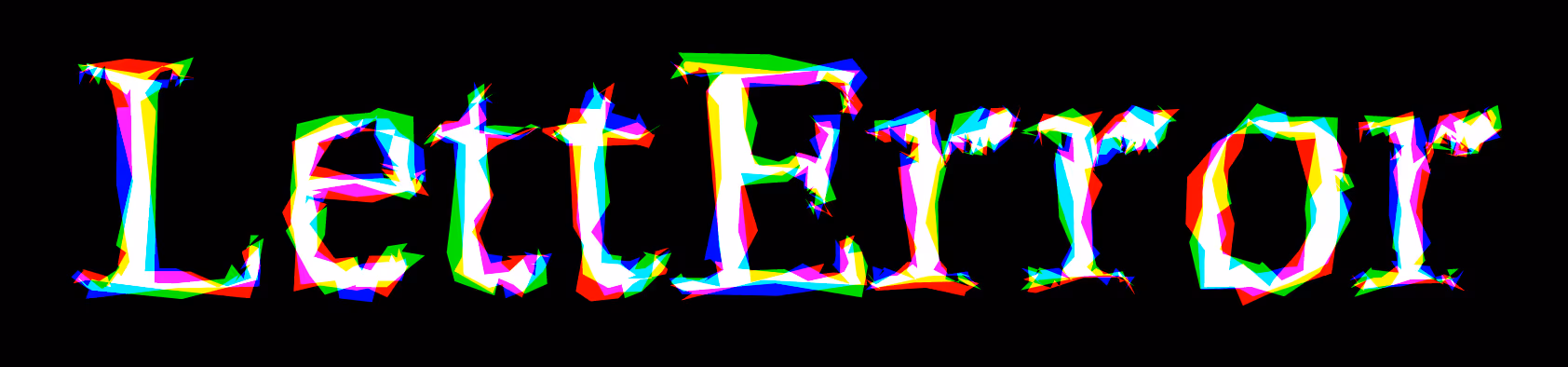
Emigré #18: Is Best Really Better? The original LettError article on random fonts, code and design in the digital age [1991]
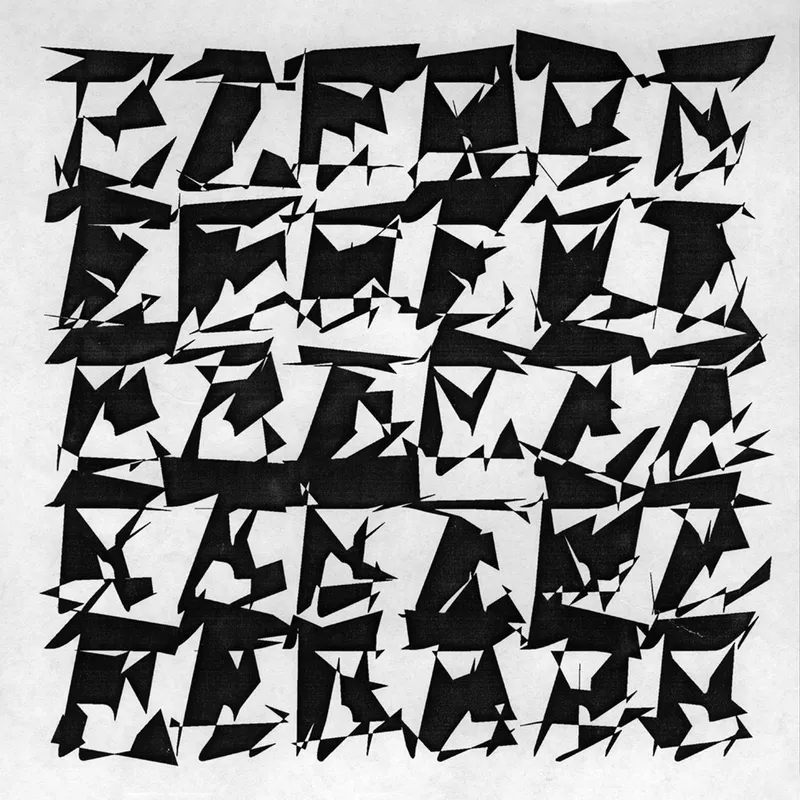
Thirty randomised E’s on a print from 1990. Written as raw PostScript and sent to a laserprinter. Experiments with Just van Rossum.
The developments in typeface design, typesetting and printing have always been aimed at the improvement of “quality”. Compared to printing techniques as they existed in the early 15th century we have indeed come a long way. We can digitally output the most perfectly drawn typefaces onto film in resolutions of up to 5000 lines per inch. We can print in offset, in perfect registration, on the smoothest papers and finish it off with layers of varnish, all at a speed that our 15th century forefathers would find baffling. Technically we can create the slickest printing ever, reach the highest possible quality ever. Unfortunately, the results have too often become absolutely boring. The quality of a printed product, the high resolution of its typefaces, the perfect printing are not necessarily what makes for good design or clear communication.
Something about that deserves a footnote explaining what they are.
As a reaction to this development, we decided to create a typeface that would add liveliness to the page that has since long been lost using the modern technologies available.
Our typeface would have a high resolution distortion of its digital outlines with lengthy rasterizing times as opposed to most developments in digital type: the unsmooth and slow versus the slick and quick.
Type has always been in flux. Gutenberg started with whole copied pages cut from a single piece of wood. All the characters were hand-cut and no two a’s were the same. And did anyone mind? Gutenberg imitated handwriting because it was the only model of letterforms available at that time. He simply developed a process that was already there, but he succeeded in doing it faster. Only later were the advantages of movable type exploited, when hot metal type casting techniques made it possible to create large quantities of type in a relatively inexpensive fashion. This was also the period when letterforms started taking advantage of this new medium. Bodoni cut serifs so thin that it would have been impossible to produce them out of wood. It has always taken a while for people to realize the potential of a new technology.
Today’s fonts work the way they do because they are still created in a hot metal, movable type kind of way. Their design is based upon the process of punchcutting, which creates a matrix from which an infinite number of identical copies of each letter can be made. Digital type may even “crash” just as hot metal typesetting did. And, ironically, digital type has resulted in a revival of old style and non-lining numerals and even small caps. The usage of type is still based upon the proverbial typecases that were divided into different compartments, each for a different letter. When a certain letter is needed, it is put in line with the others to make words and sentences. Today the typecase is replaced by a font and a digital printer.
Through our experience with traditional typesetting methods, we have come to expect that the individual letterforms of a particular typeface should always look the same. This notion is the result of a technical process, not the other way round. However, there is no technical reason for making a digital letter the same every time it is printed. It is possible to calculate every point and every curve differently each time the letter is generated by slightly moving the points that define a character in various “random” directions. We discovered that it was possible to create a font featuring these characteristics in PostScript; our result was Beowolf, the first “RandomFont” typeface of its kind.
Random technology, which is what we call the programming that is involved, is about letting the rasterizer behave randomly within the boundaries of legibility. Instead of recreating a fixed outline or bitmap, the Randomfont redefines its outlines every time they are called for. Thus, each character will be different each time it is printed. All the points that define the outline of any character will be nudged in a random direction. The distance moved depends on the parameters. For instance, Beowolf 21 has a little deviation, Beowolf 22 has a noticable wrinkle and Beowolf 23 is definitely mad.
Under some conditions, the randomising shapes of Beowolf can cause colorful effects like
this. For instance, when the old PostScript Beowolf was sent to a CMYK color device, each separation would
get a different shape and thus mix to different colors. In this image these effects have been recreated as
RGB colors. But it is no longer automatic.
This illustration was not part of the Emigré article.
What is interesting about this typeface is that the deviations in the individual letterforms create an overall unity and the liveliness of the page that we were after is accomplished. We also discovered an interesting side effect when creating color separations for four color printing. Since the printer (Linotronic in this case) generates different outlines each time it prints a particular letter, the color separation will result in four different non-matching films. The resulting letterform in print will be outlined in bright colors.
While working on Randomfont we became aware that if we treated typefaces as computer data, instead of fixed letterforms, we could create some very bizarre systems. One idea was to connect a font file to a self copying moving mechanism to create a virus font; a self distributing typeface: a great way for young and ambitious type designers to get their typefaces known and used. No type manufacturer would be able to compete with that kind of immediate proliferation. Or we could change typographic awareness of computer users around the world by creating a font virus that would transform every Helvetica into something much more desirable — the Post-modern typographer’s revenge. Virowolves that travel around the world in a single day, with typedesigners getting paid by buying network shares. Or we could hand out our fonts at conferences and meetings, but after a while the files will turn sour just like milk. A perfectly good font would turn random over time. A great way to force people to eventually buy a legitimate copy. And you better hurry, or the virus font will affect your other fonts as well!
We could release a typeface that deteriorates over time, slowly turning into a Beowolf-like face, scaring the hell out of its users. We could create letters that wear out through frequent use, combined with a feature that uses up certain often used letters. You want real letterpress quality? You can get it! How about a font that adds typos? Link a number of typos to a particular time of the day and simulate an erratic (human) typesetter, or a font that does not work overtime.
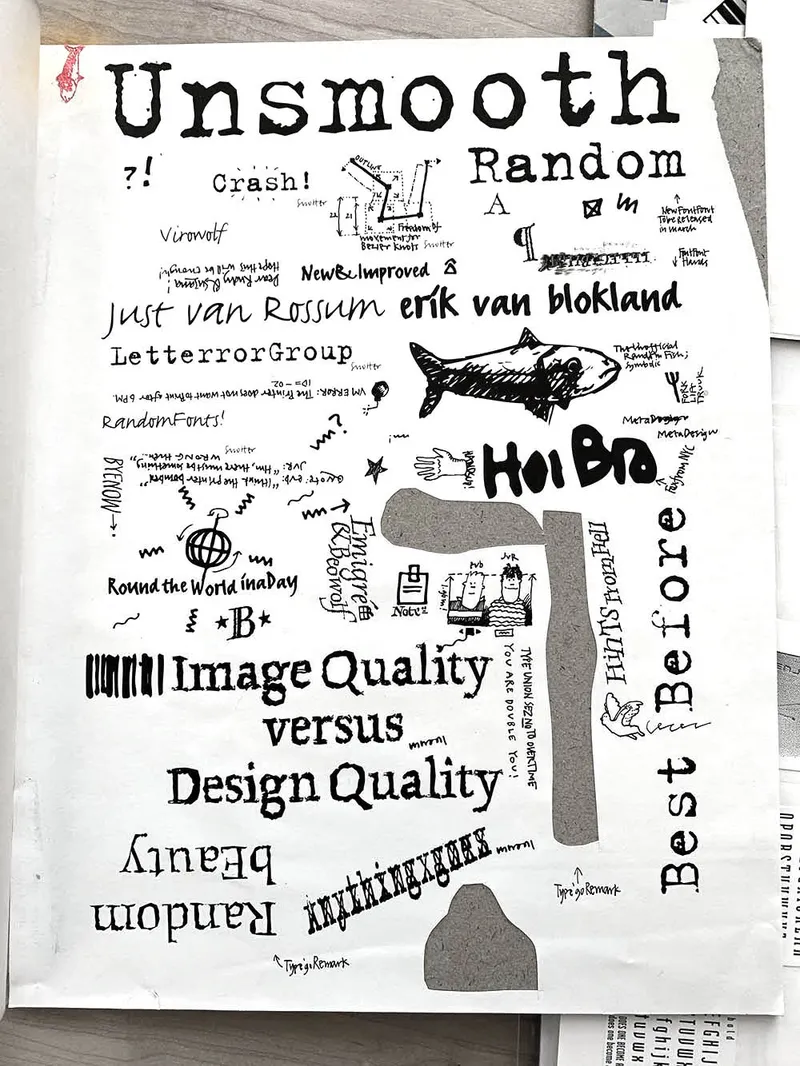
These are ilustrations for the Emigré article on RandomFonts. A digital collage of various fonts and then produced with a Linotron. These days we would just send the data. But notice the red fish at the top left: this was stamped on the page at the LettError studio.
Photographed at the Letterform Archive. So you can tell which bits were cut out for the paste-up of the actual layout. See the whole magazine at the LetterForm Archive Photo Dan Rhatigan